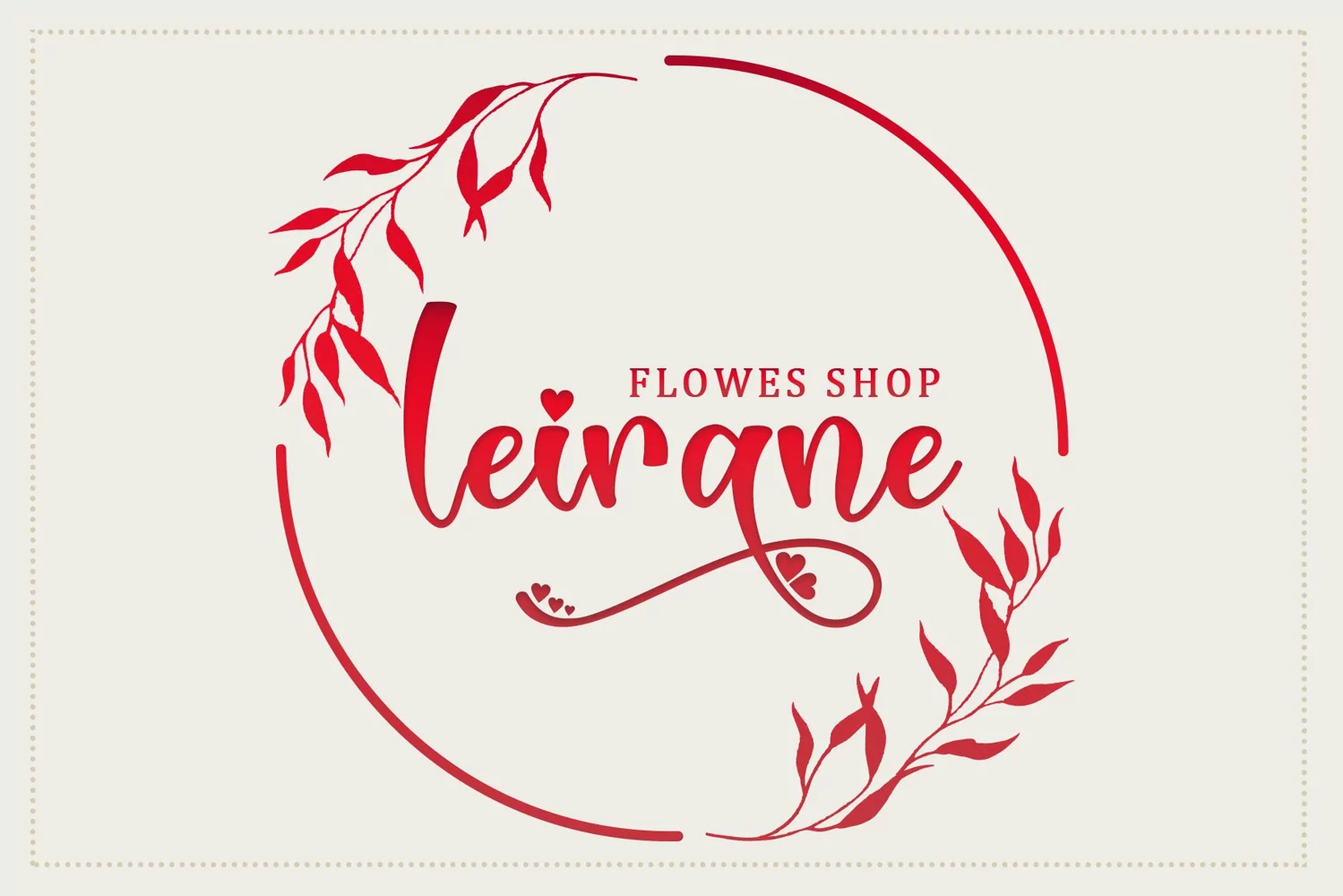
Love Sunday example image 1
Love Sunday is a romantic and sweet calligraphy typeface with characters that dance along the baseline. It will add a luxury spark to any design project that you wish to create! Love Sunday is PUA encoded which means you can access all of the glyphs and swashes with ease!